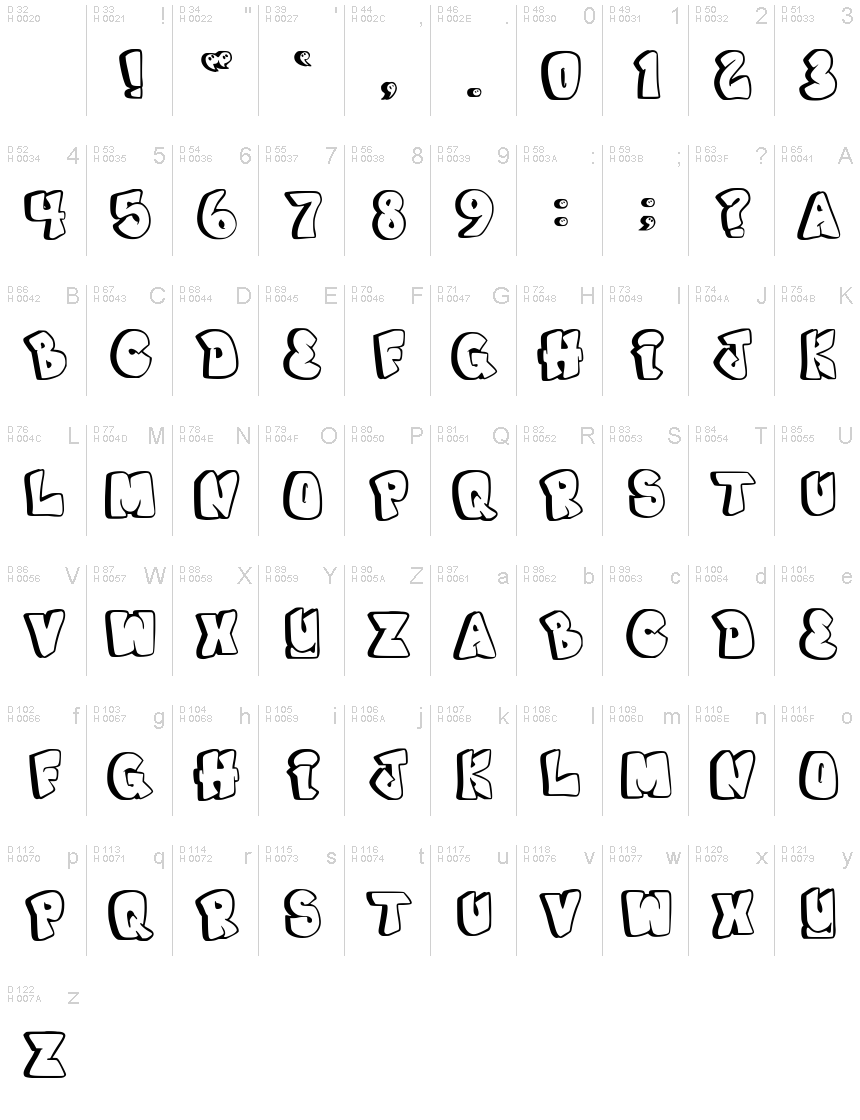
Dugffiti font by Dug McUgly is an attention-grabbing font style that features an intriguing shape and expressive design. Classic 3D graffiti elements are recreated in each character for a modern urban look with bold letters and layered engravings. Thanks to its dynamic flair, the informal font is sure to add a vibe of contemporary relevance whenever it’s applied.
All the most popular informal uses such as skateboards and T-shirt designs would look great with this free font. Package 3D style slang words for printed games or even make your album music cover stand out. Graffiti art, urban city maps, mural installations, amusement park attractions, video games, tattoo parlors signs are other design ideas perfectly achieved with Dugffiti.
Introducing Dugfitti, a new free font. I needed a basic graffiti font, and here it is!